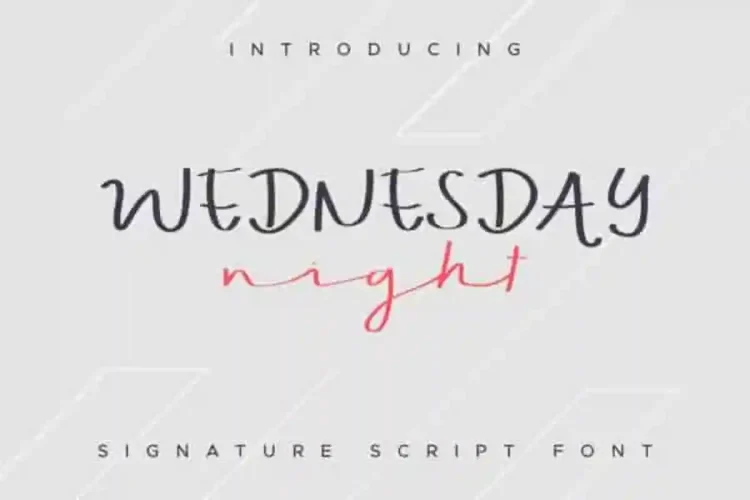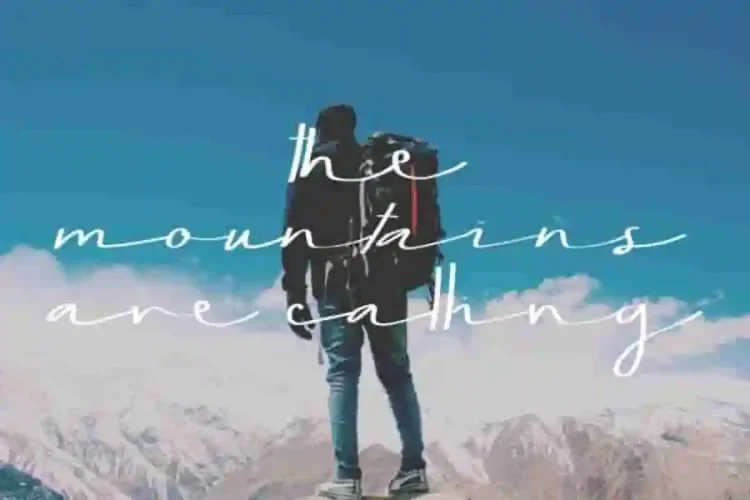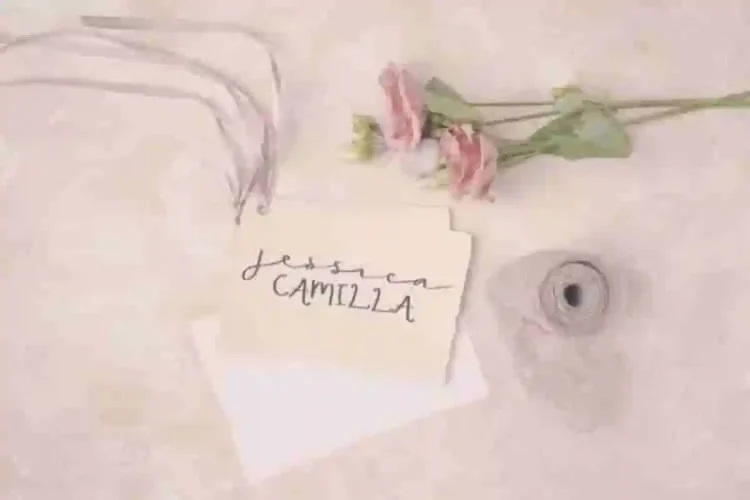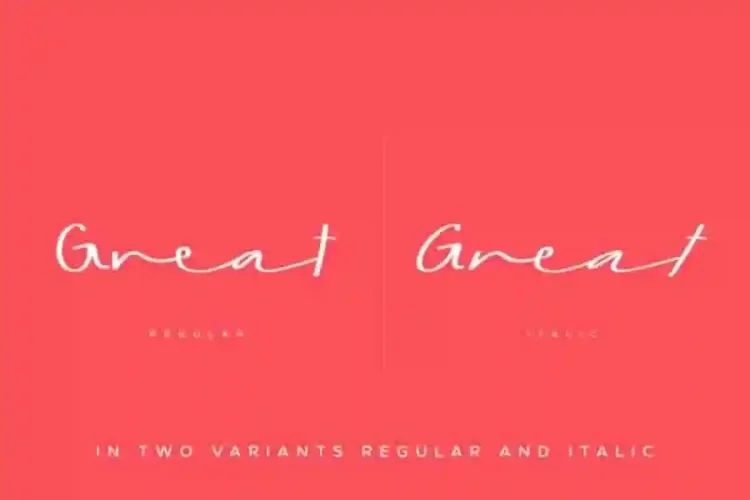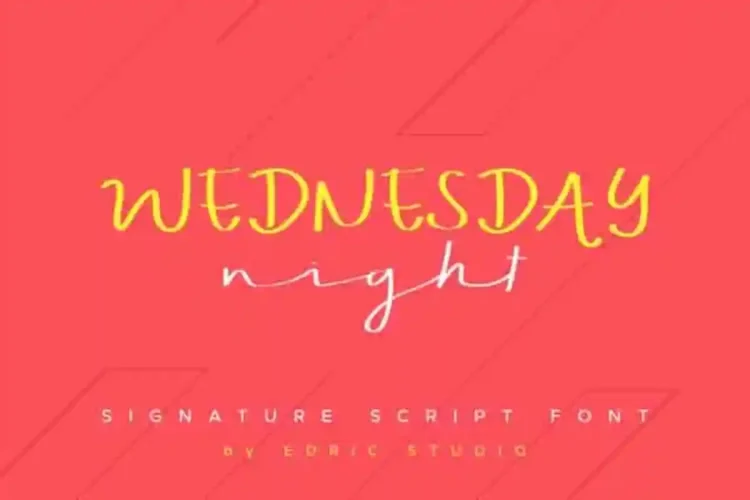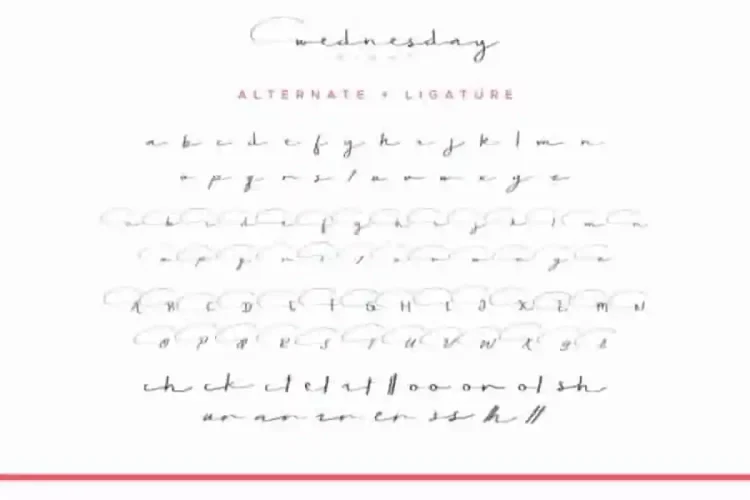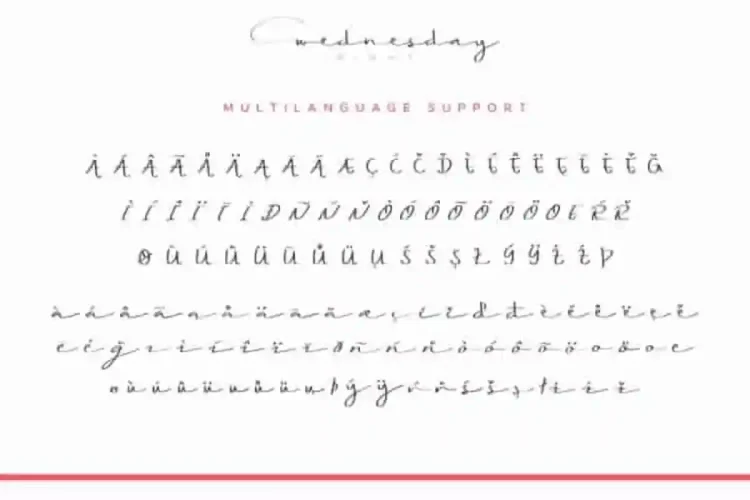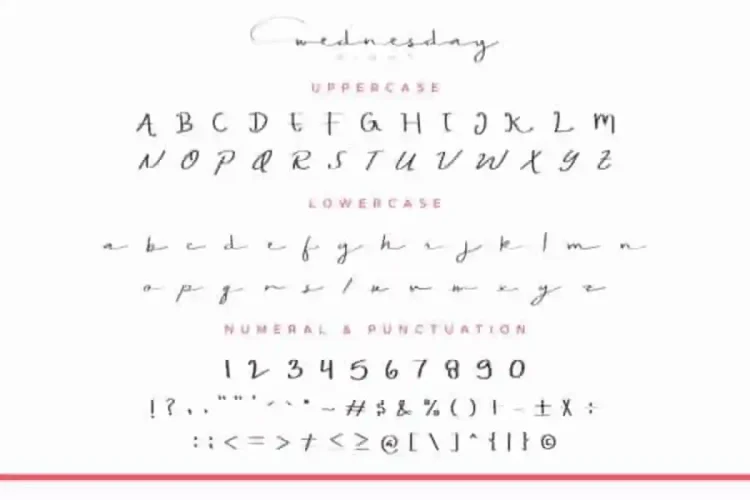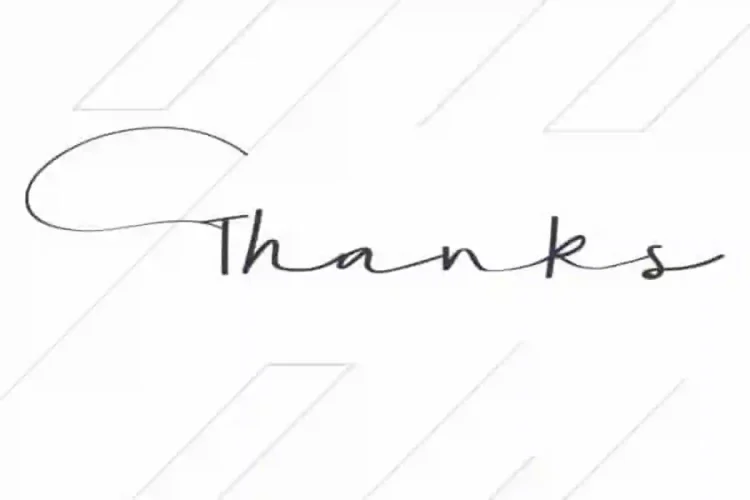
WEDNESDAY night Calligraphy Font
Introducing our new font : WEDNESDAY Font Calligraphy
This font was handcrafted with love in Bandung and Garut – Indonesia. The artists of this font are : Saila and Suci. This is a script duo with two styles : regular and italic. Both of the styles are in signature mood.
WEDNESDAY Font Calligraphy comes with many international languages characters glyphs.  This font will suits many projects categories : (with extended license) Logo type, flyer, stationery, business card, signage, flyer, brochure etc.  With your creativity, there’s no limit using with this font.